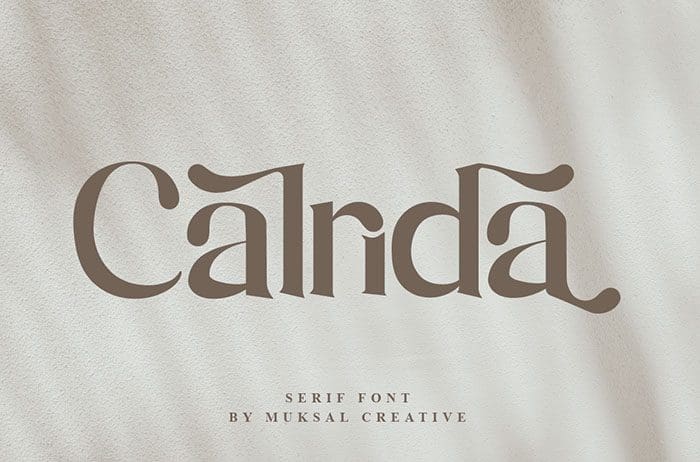
Free Calrida Serif Font
Calrida Serif Font
Free Calrida serif font is a modern high-class typeface. It includes all basic glyphs with Non-English characters. This font will pair beautifully with the script, signature or handwriting style. Calrida is perfect for headlines, titles, magazines headings, logo’s, presentations, posters, name card, web layouts, invitations, books, branding, and nearly any creative design. Designed this font by Muksalmina. You can also search allĀ free fonts.